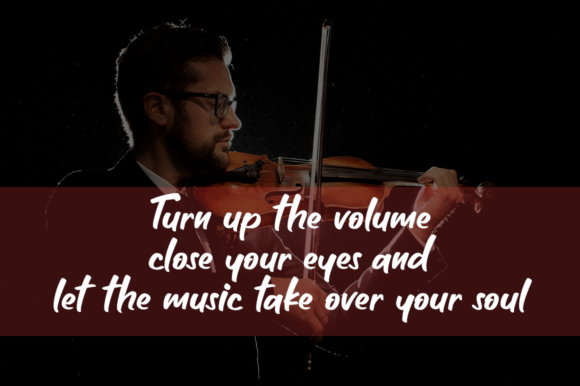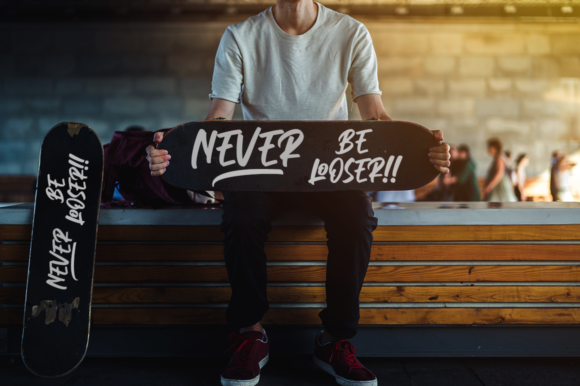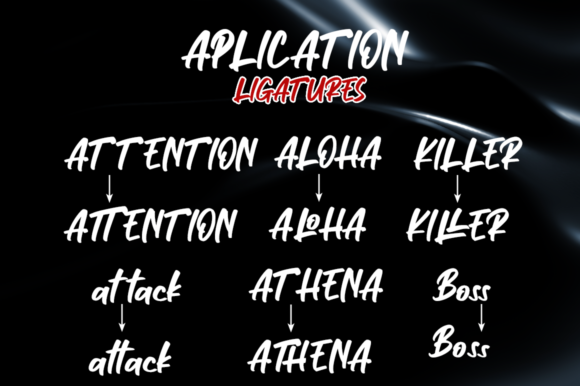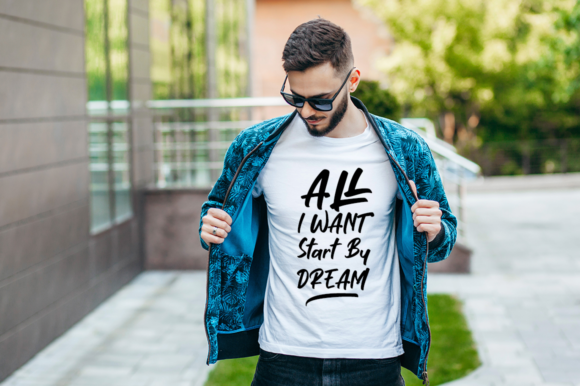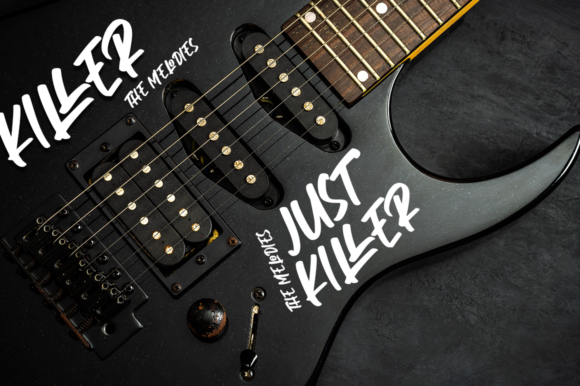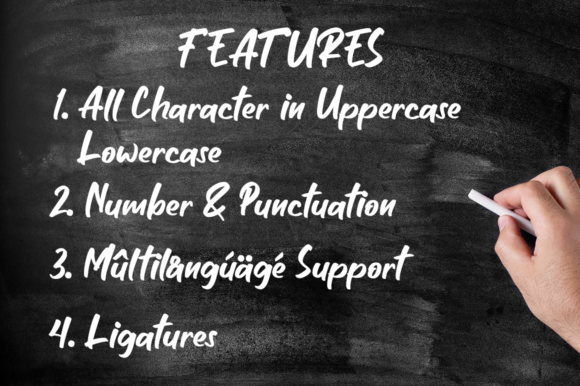
Introduction to Millestones Font
Have you ever found yourself stuck in a design rut, desperately searching for that one font to bring your creative project to life? We’ve all been there. For designers, finding the perfect font can be a game-changer. It’s what elevates a design from good to great, and can make all the difference in grabbing the viewer’s attention.
Enter the Millestones Font, a simple yet bold display font that’s perfect for casual or informal designs. With its modern and urban style, this font is a design resource that’s sure to impress. Whether you’re working on a project that requires a high-quality, eye-catching font or simply need something to add a touch of personality to your design, the Millestones Font is an excellent choice.
Key Features of Millestones Font
- High-quality design resource suitable for various creative projects, including logos, graphics, and typography.
- Unique, elegant style with a transparent background, allowing for versatility and easy customization in design projects.
- Designed to be highly legible, with clear and crisp letterforms that are perfect for body text or headlines.
- Includes a range of weights and styles, from light to bold, to cater to different design needs and preferences.
Honest Review: Millestones Font
I recently stumbled upon the Millestones Font, and I must say it’s a great addition to any designer’s toolkit. The font’s unique and stylish design makes it perfect for creative projects that require a touch of sophistication.
One of the standout features of the Millestones Font is its transparent background, which allows for seamless integration with any design element. The high-quality design ensures that the font looks crisp and clear, even when scaled to larger sizes.
- Unique and stylish design that sets it apart from other fonts
- Perfect for creative projects that require a touch of sophistication
- High-quality design that looks great even at larger sizes
While the Millestones Font is a great addition to any designer’s toolkit, there are some limitations to consider:
- ⚠️ Limited font variations, which may limit its versatility in certain design projects
- ⚠️ May not be suitable for projects that require a more minimalist or modern aesthetic
Overall, I’m impressed with the Millestones Font, and I would highly recommend it to designers looking for a high-quality, unique font for their creative projects.
Millestones Font
The Millestones Font is a high-quality, free design resource ideal for creative projects. It features a transparent background, making it versatile for use in various design applications.
Tips for Getting the Most Out of Millestones Font
Experiment with different font sizes, colors, and styles to create visually appealing designs.
Use the transparent background to create unique and eye-catching graphics.
The Millestones Font is ideal for:
Designing invitations, posters, and flyers.
Creating social media graphics and ads.
Developing branding materials, such as logos and business cards.